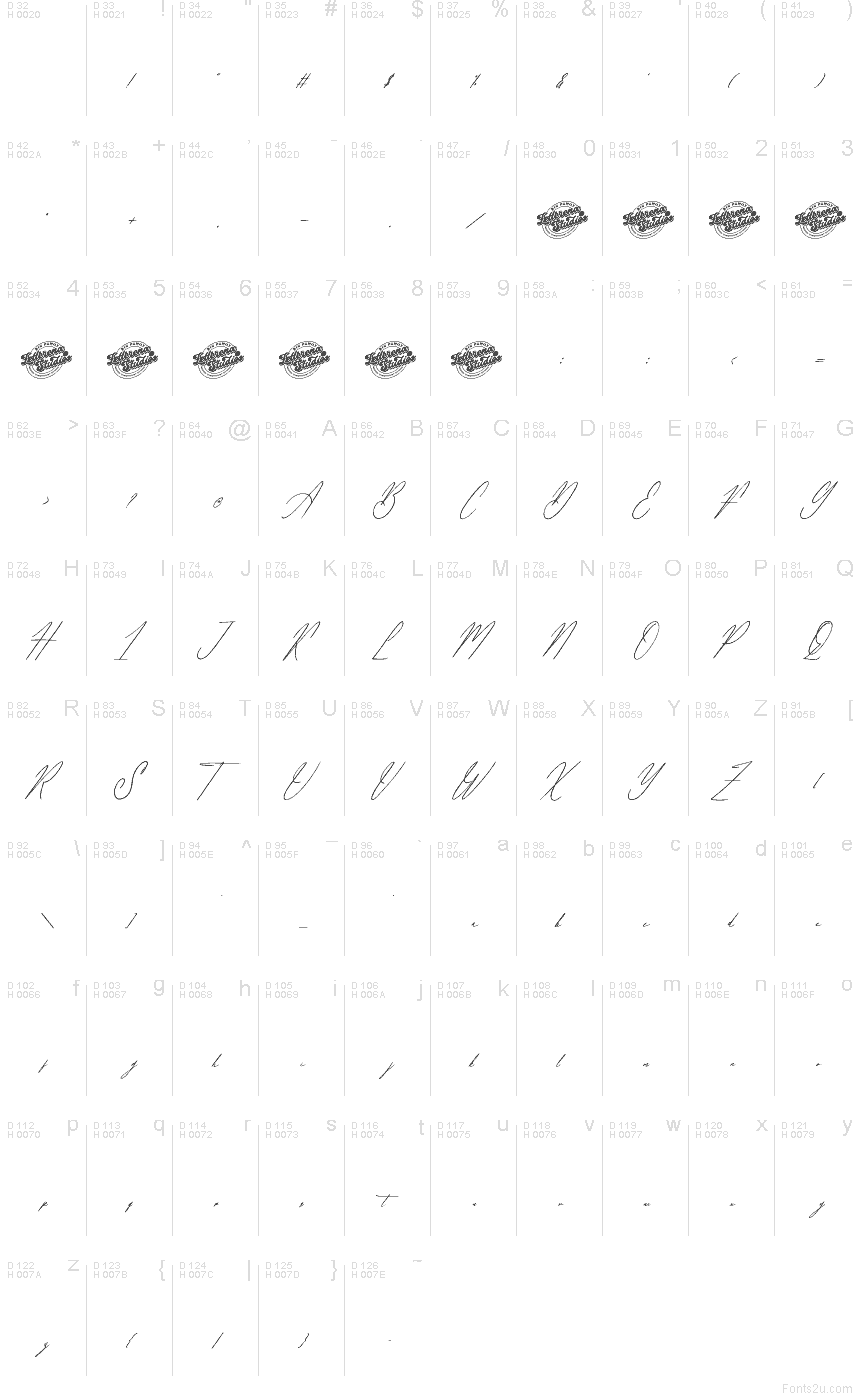
Delanisyta Gabrielle by Letterena Studios is a free signature-style handwritten font with the airy sweep of modern wedding stationery. Its letters lean into long, looping strokes and fine, tapering lines, giving the script a fluid, personal rhythm that feels more signed than simply written.
This free font fits branding for beauty lines, boutique packaging, invitation suites, social media headers, and magazine-style cover lines where a graceful, fashion-leaning script can carry the mood. It also works for short title cards, logos, and monogram-like initials, since the extended opening and closing strokes give even brief words a dressed-up, handwritten presence.